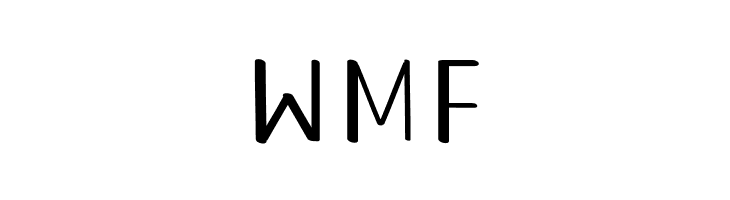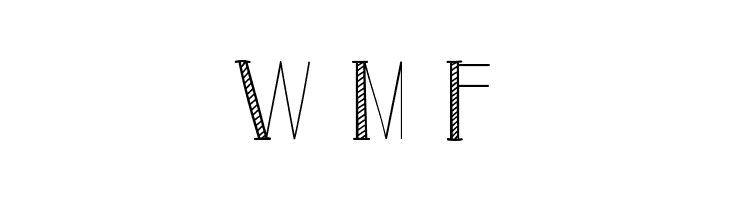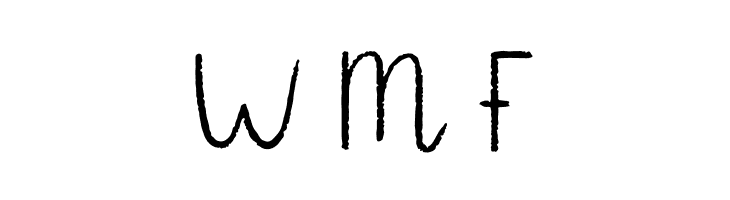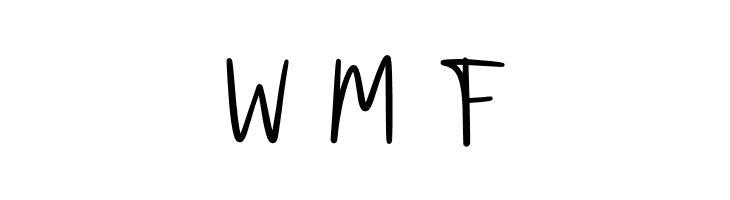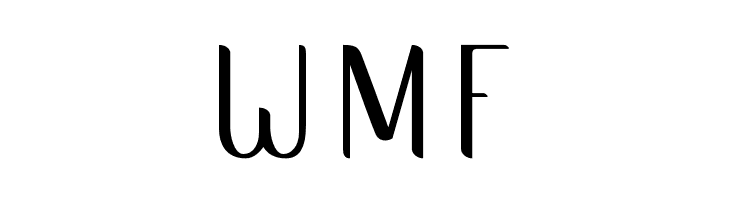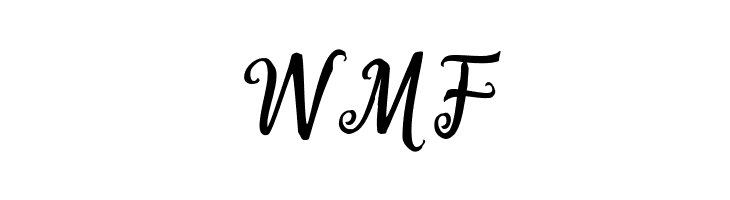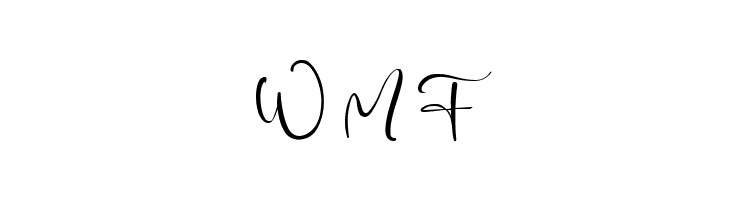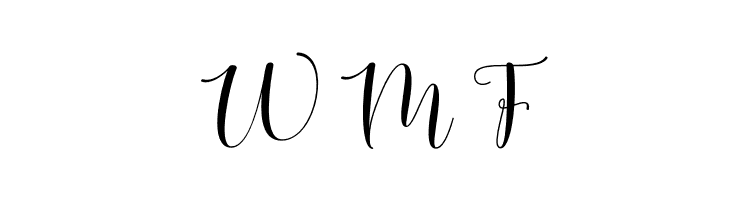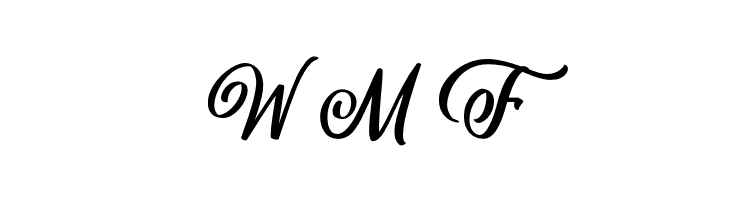
A playful, modern font with bold, slightly condensed uppercase letters and dynamic lowercase letters.
A playful, hand-drawn font with decorative uppercase and minimalist lowercase letters.
A textured, handwritten font with flowing cursive lowercase and structured uppercase letters.
A playful, handwritten script font with bold uppercase and fluid lowercase letters.
A modern, decorative font with elegant uppercase and script-like lowercase letters.
A decorative and elegant script font with ornate uppercase letters and smooth lowercase characters.
An elegant, flowing script font with ornate uppercase and smooth lowercase letters.
An elegant, flowing script font with ornate uppercase and smooth lowercase characters.